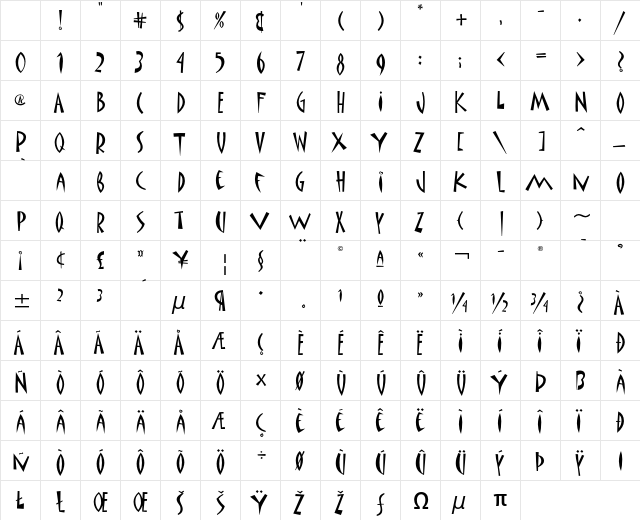
Matisse ITC Std Regular
Designer: Gregory Gray
Design Context for Matisse ITC Std
Matisse ITC Std is a composed and adaptable typeface that performs quietly and consistently across a wide range of design contexts.